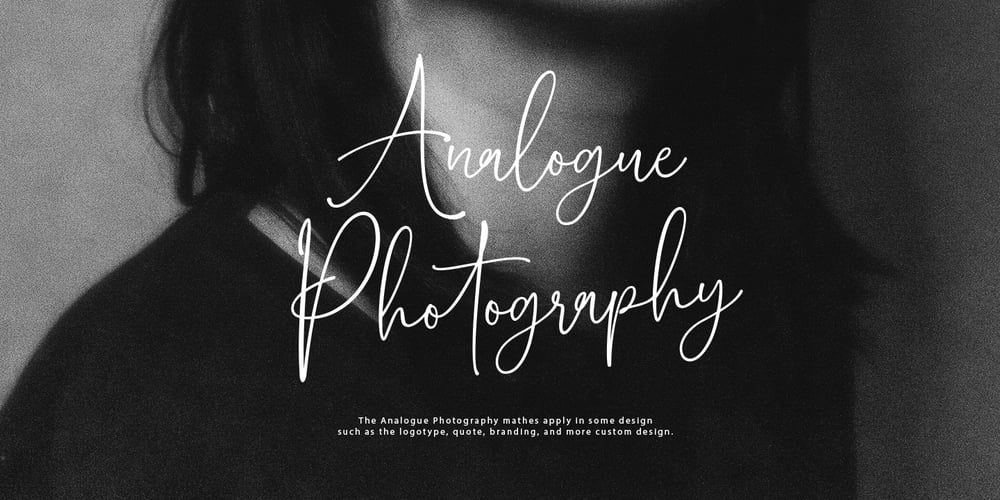
Analogue Photography Font Family was designed by Faisal Tanjung and published by sizimon. Analogue Photography contains 1 styles and family package options. Analogue Photography is a handwritten signature font with fashionable themes. The Analogue Photography matches apply in some designs such as the logotype, quotes, wedding invitation, business card, packaging, branding, and more custom design.If you have any questions, please contact us info@sizimon.com